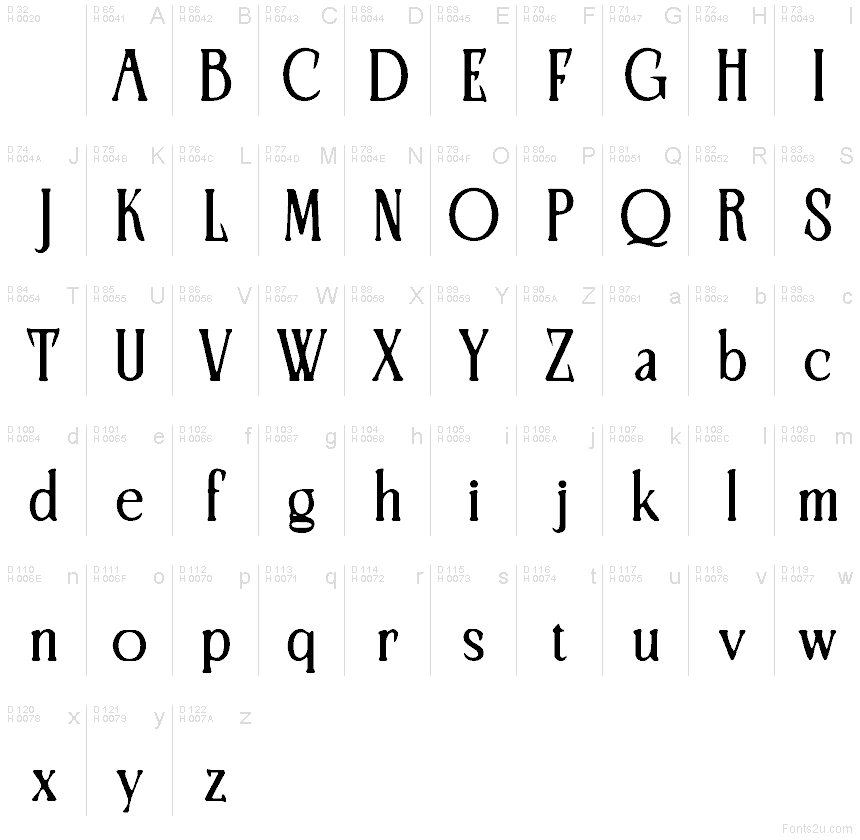
CS Praise Drawn font by Craft Supply Co. is a free retro serif font that leans into inky contrast and soft, hand-drawn edges. Built within the CS Praise family, its sculpted serifs and gently wavering strokes give headlines a warm, crafted presence—crisp where it counts, a little grainy where it charms. The rhythm is measured and upright, so you get vintage character without losing clarity at medium to large sizes.
Using CS Praise Drawn, you’ll get standout results on boutique logos, wine or coffee packaging, editorial covers, event posters, album art, and social promos. The subtle roughness adds tactility, while the tall forms keep spacing steady for punchy, centered headlines. Pair this free font with a clean geometric sans for body copy, and let the serif sit 10–15% larger to showcase its elegant contrast.